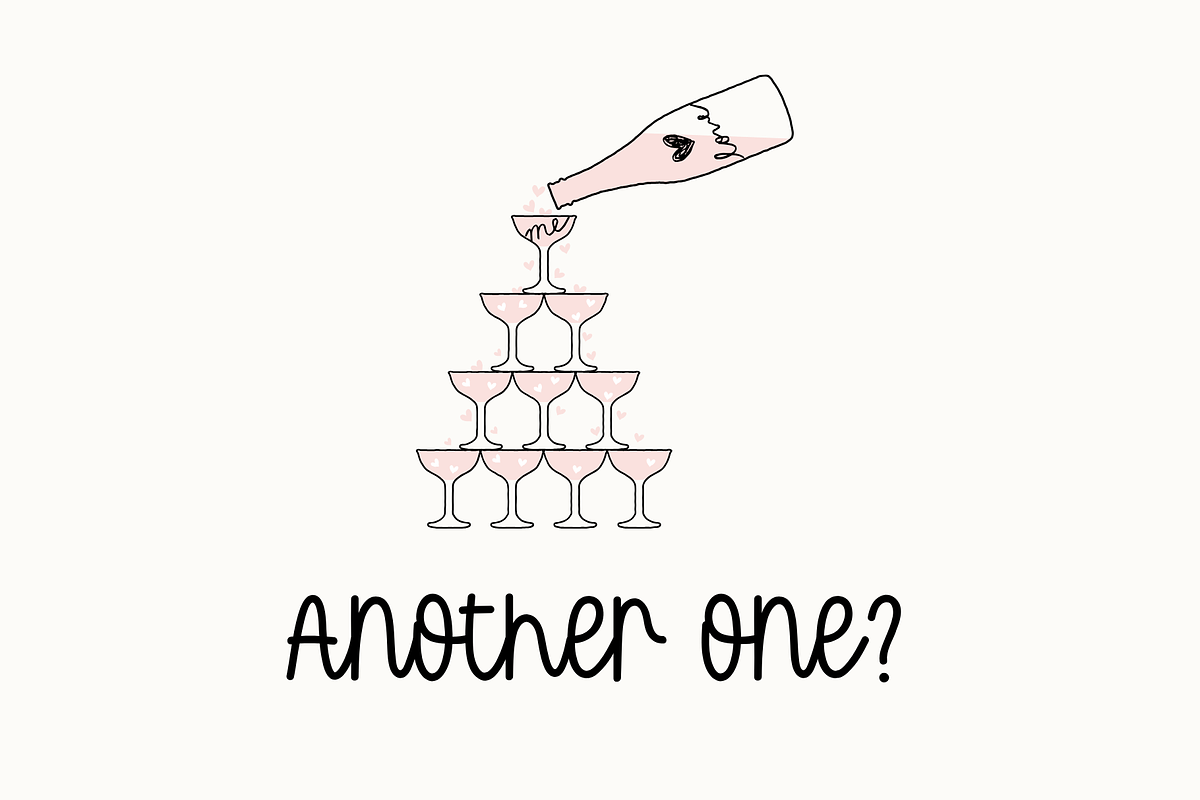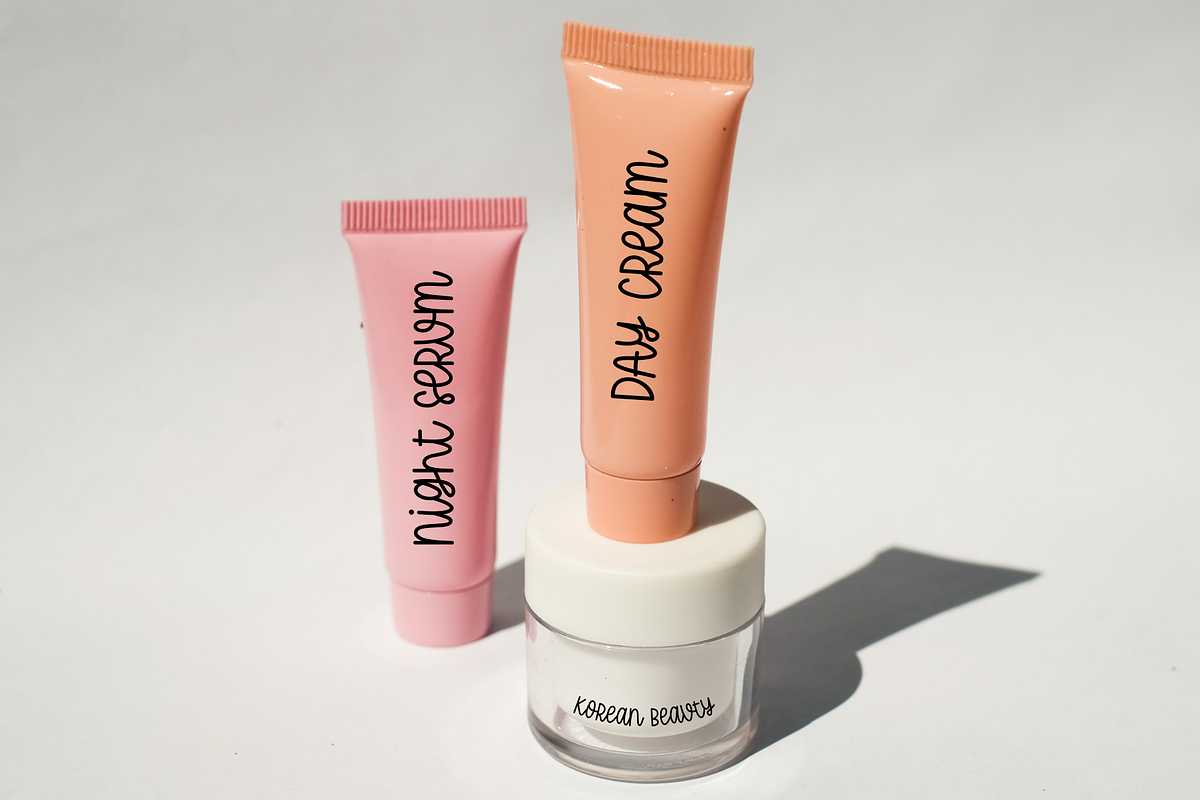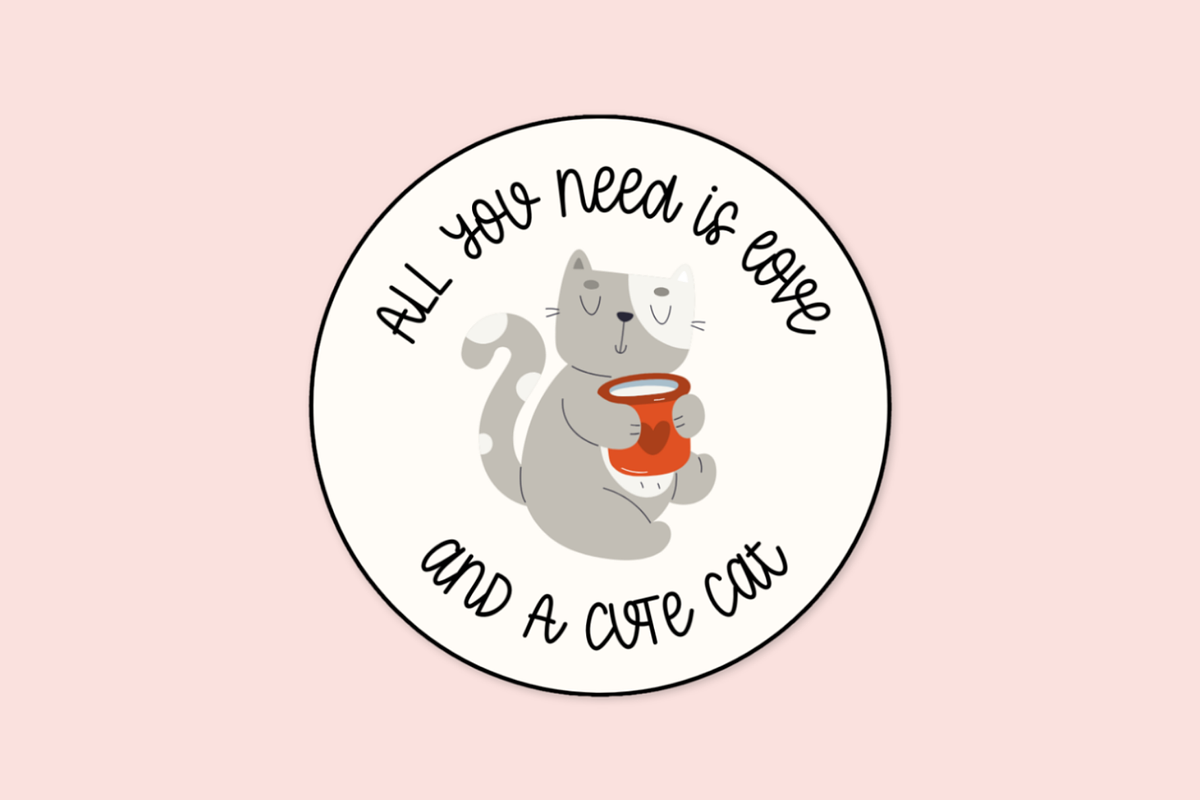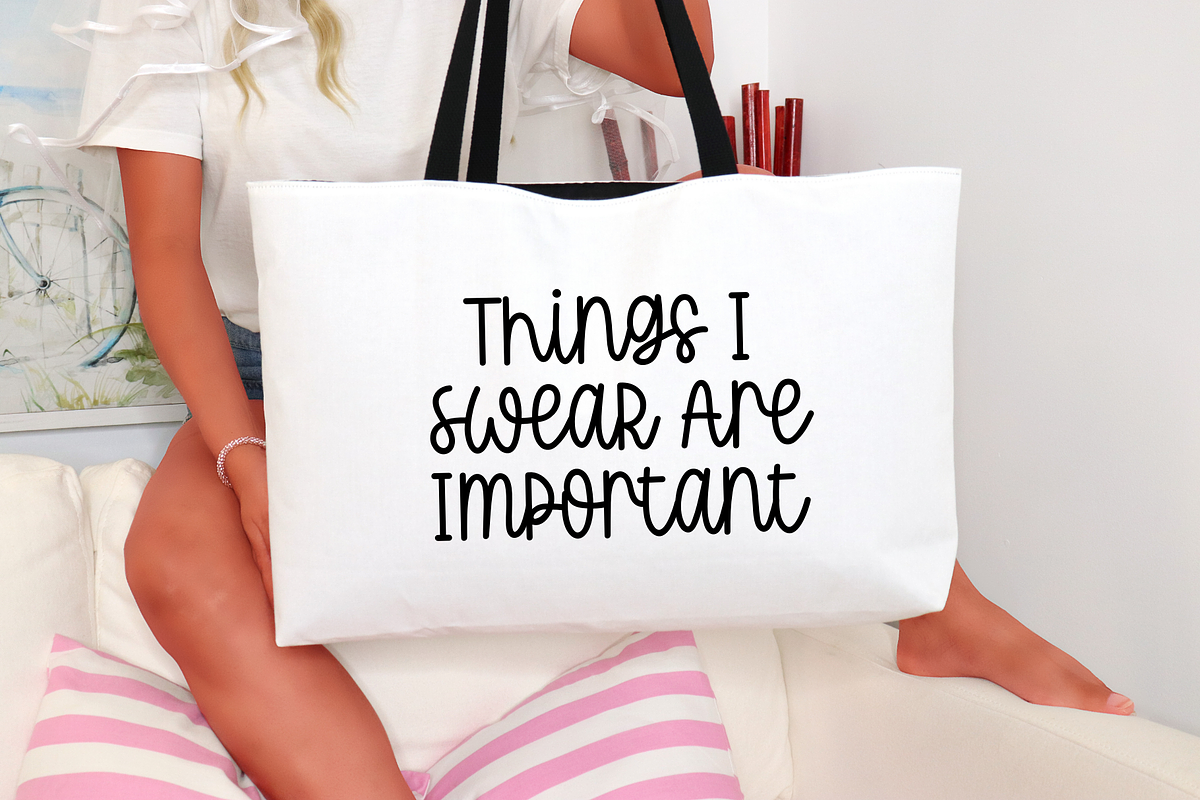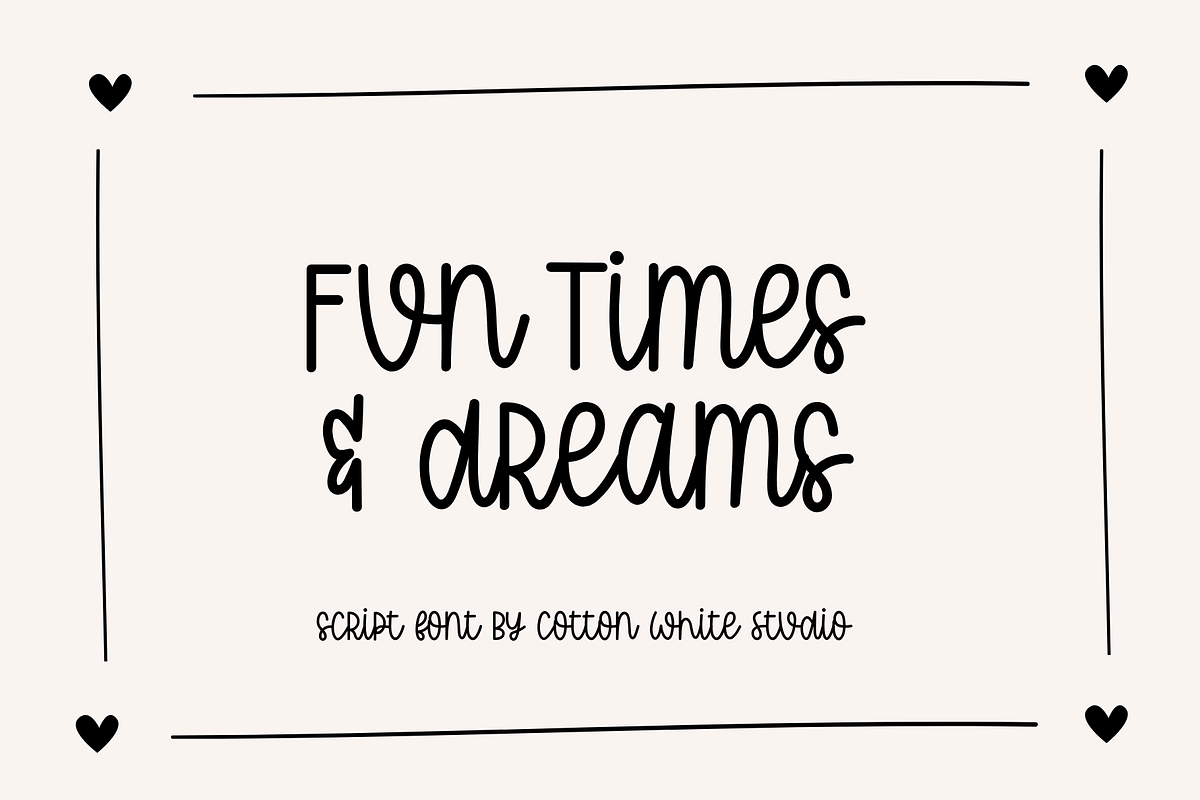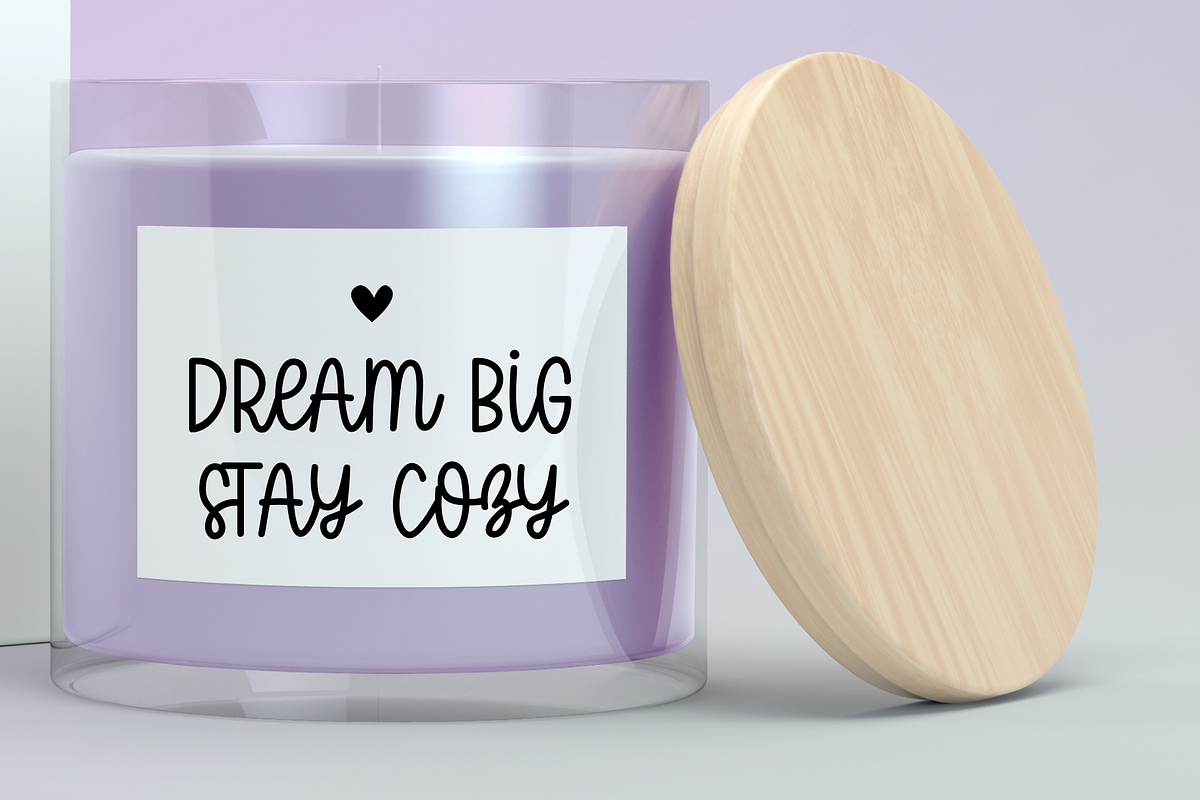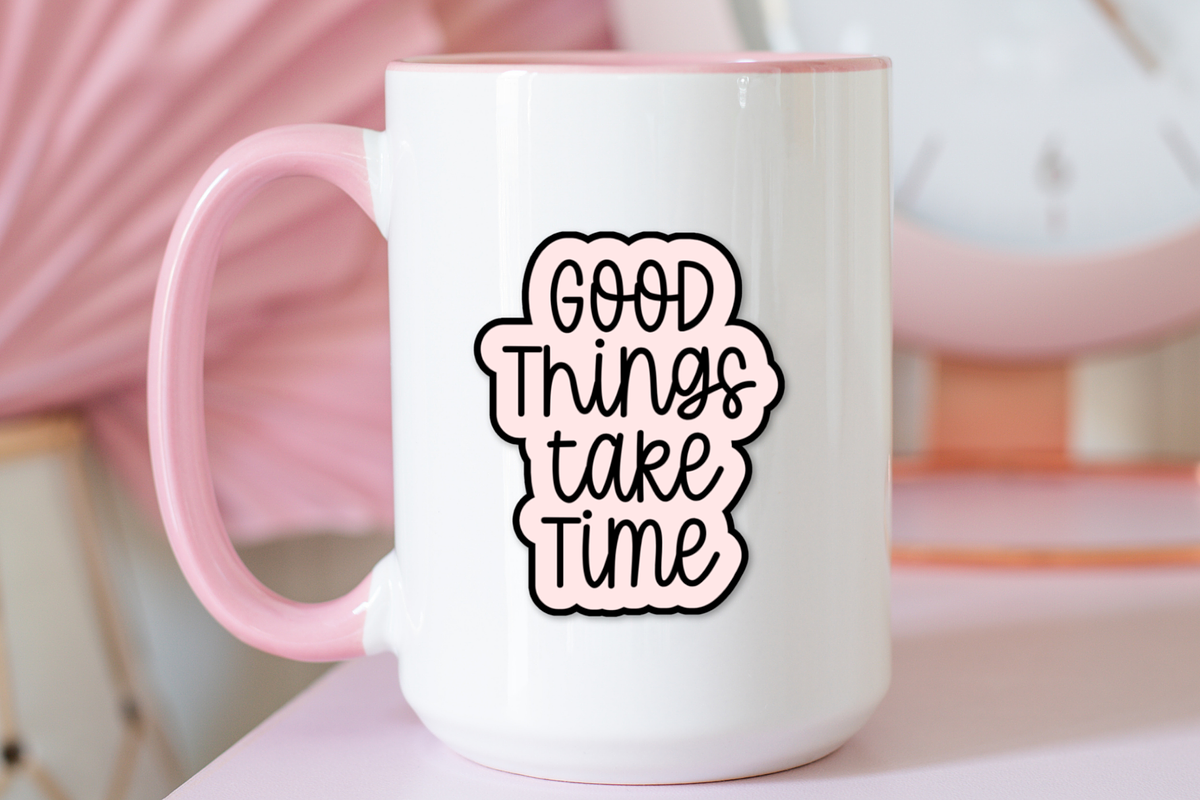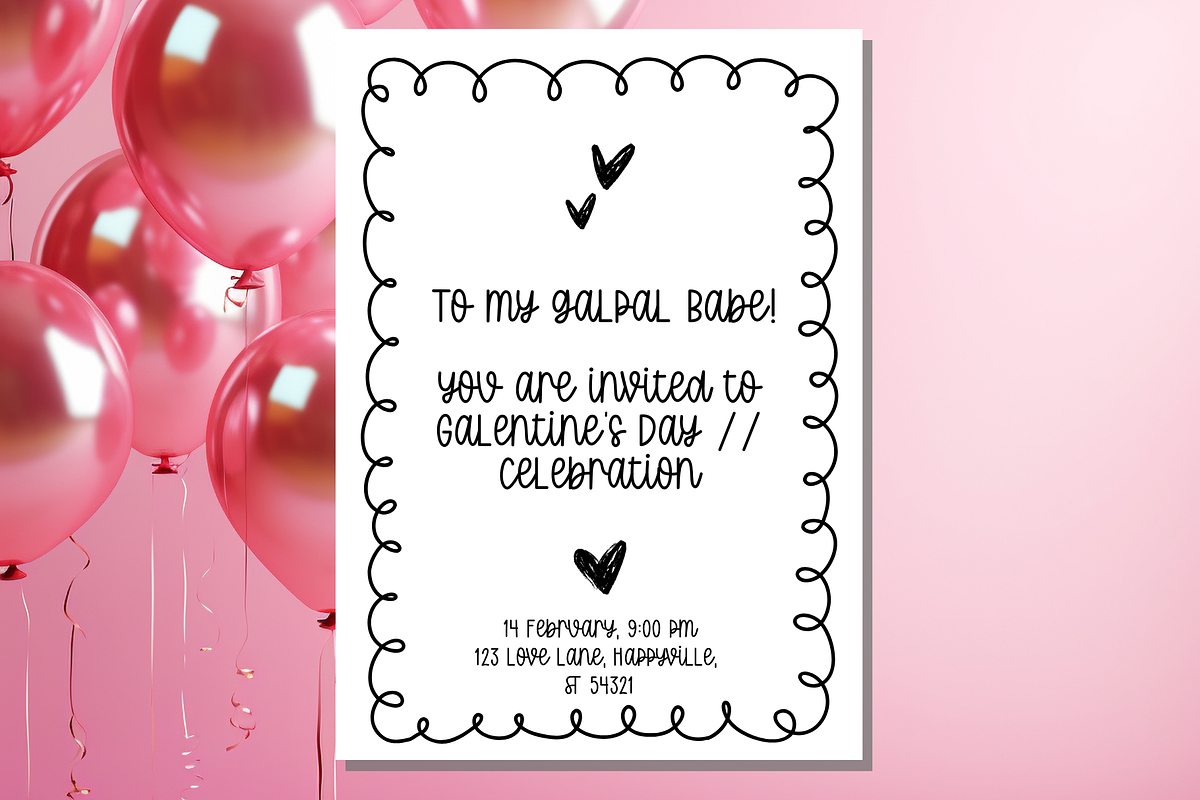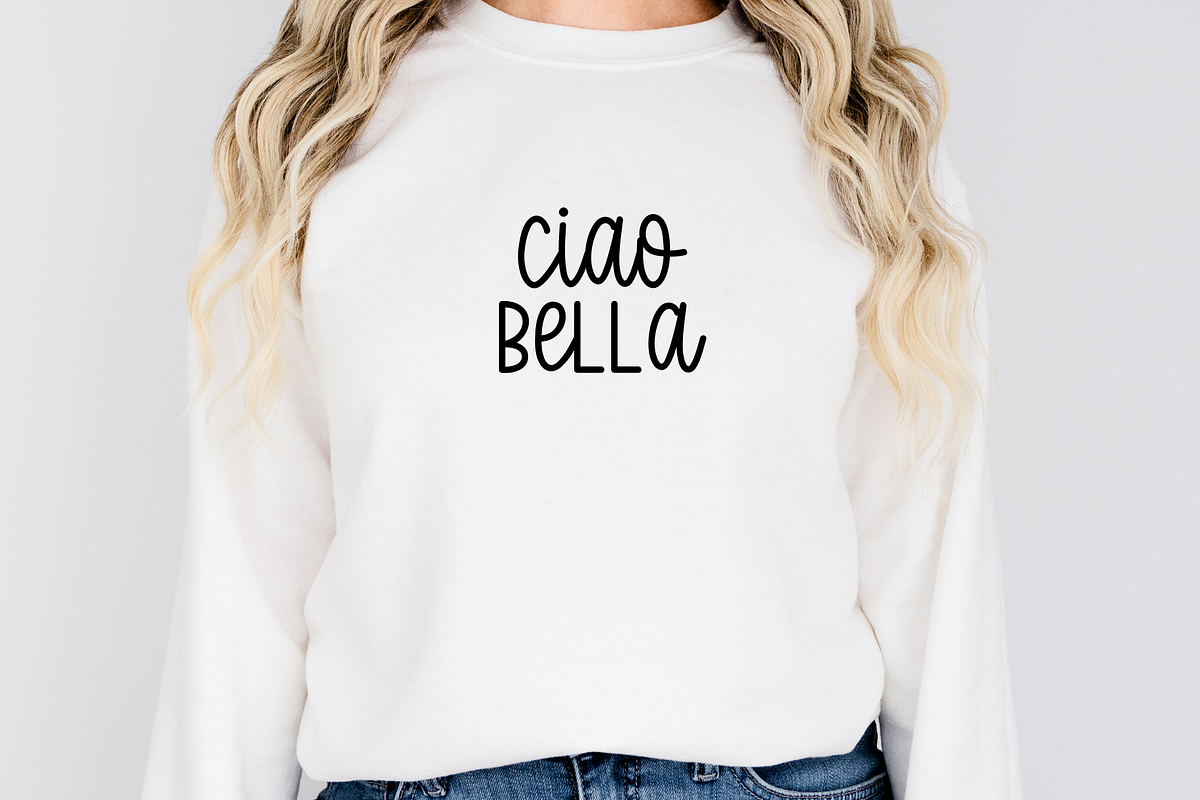
Fun Times and Dream Cute Font
A cute little font, perfect to jazz up your digital planner, journal, invitations, note-taking, or anything that requires a handwriting look.